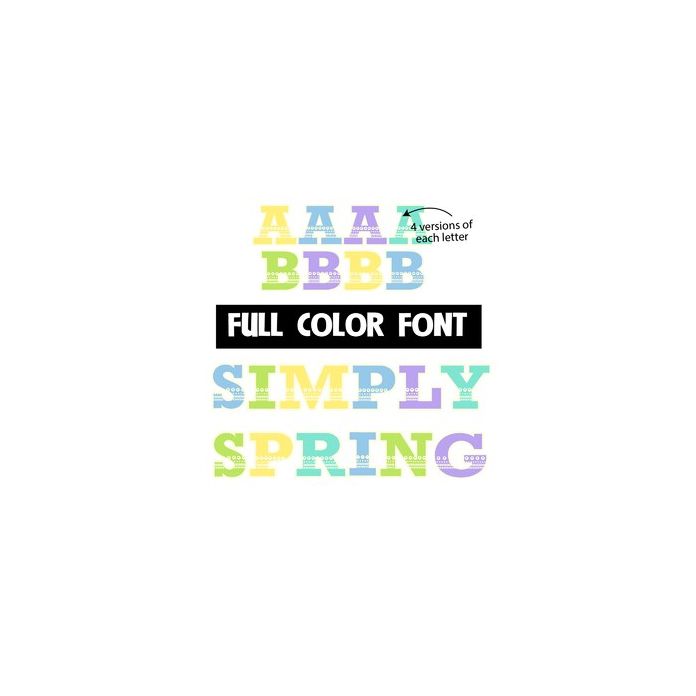
Simply Spring Color Font
This full-color font features slab serif lettering with a little decor throughout. There is a second version of each upper and lowercase letter in a different color available through Silhouette's glyph map. This font works best for titles, displays, posters and more. Please note color fonts will show as black in non compatible programs. This font type is compatible with Silhouette Studio.